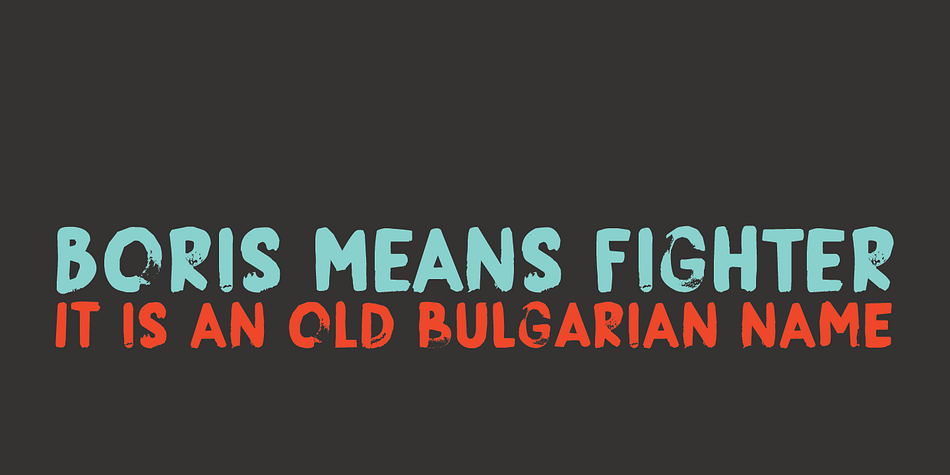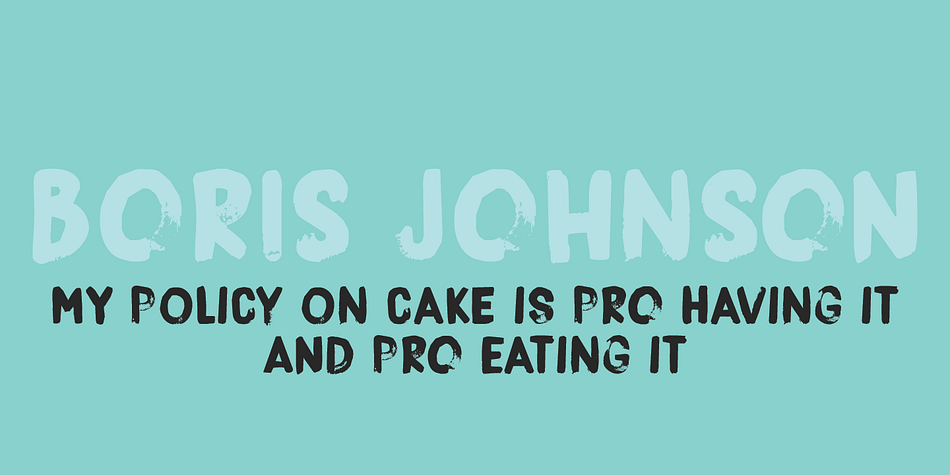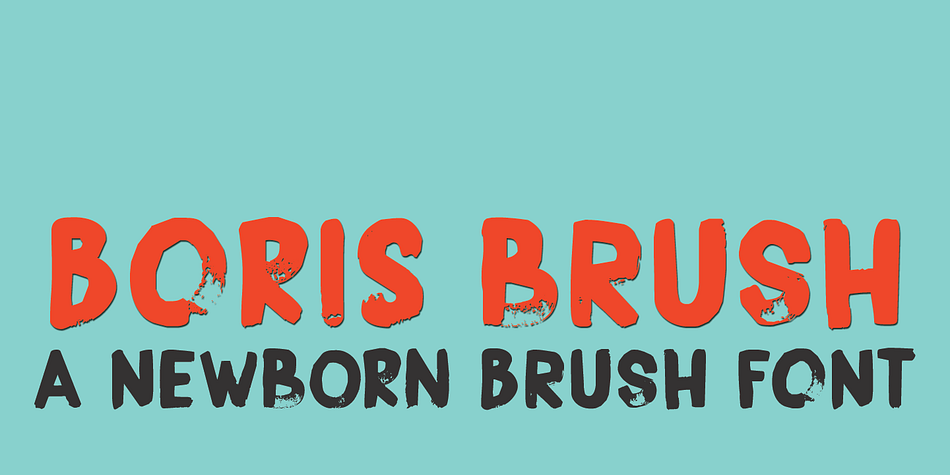
Designed by David Kerkhoff, Boris Brush is a grunge and brush display font published by Hanoded.
Boris is my son: he was born on January 7th and he is as cute as can be.
Boris Brush font is a very loud, very useful brush typeface, which I created using some fine-haired brushes and black paint. It is all caps, but lower and upper case are different and can be freely interchanged. Comes with all the diacritics you need.